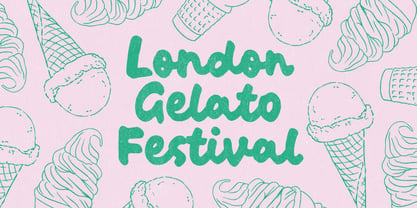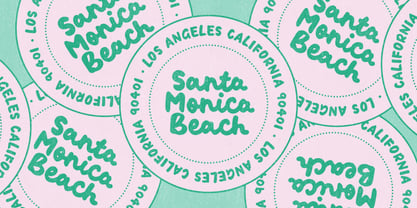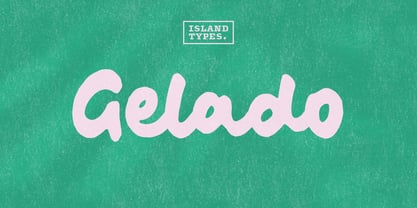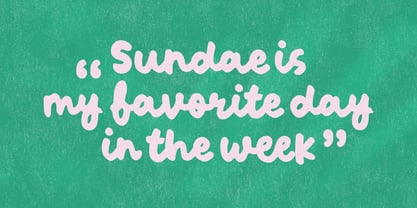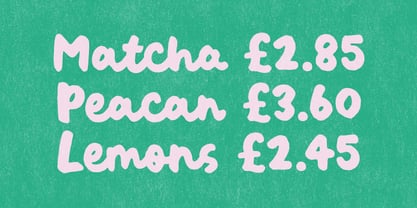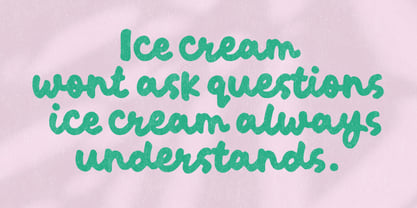
The Gelado Font Family was designed by Chris York and published by Island Type Foundry. Gelado contains 1 styles. More about this family
A friendly and fun hand painted script font. This bold connecting script is written with a thick brush and uses a flowing informal yet legible style. Perfect for packaging, logos, menus or anywhere that could use a friendly human touch. The design is a bold and free flowing casual style. Available in one weight but packed with symbols, extended punctuation and a wide range of language support.
Gelado